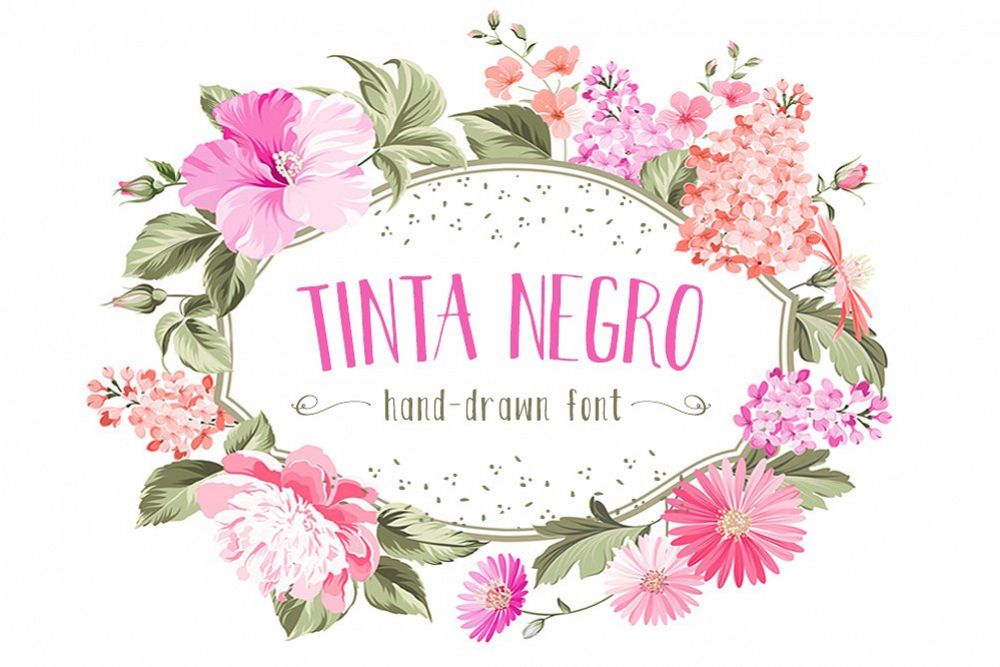
Tinta Negro Font
Tinta Negro
Tinta Negro which takes the name from Spanish is hand-drawn multilingual font designed with love. With many languages supported it's perfect for your wedding invitations, funny cards, cute website elements, illustrations, remarkable posters and all hand-drawn related purposes.